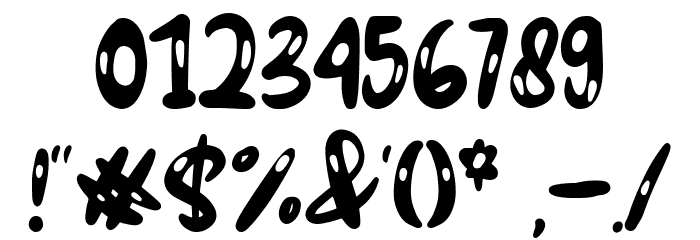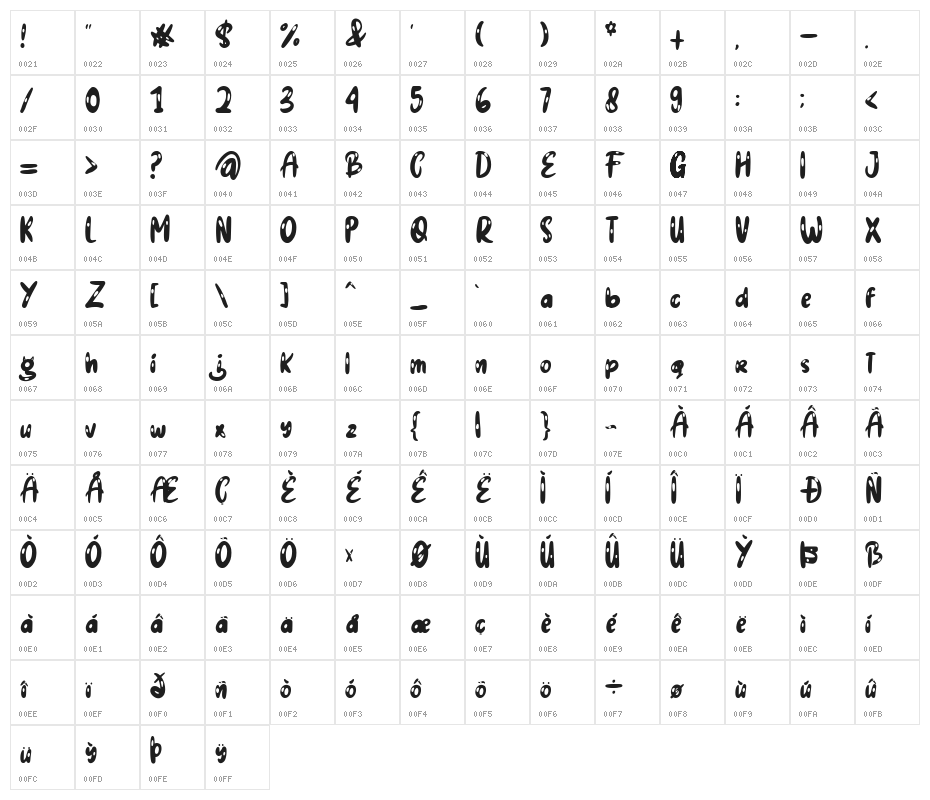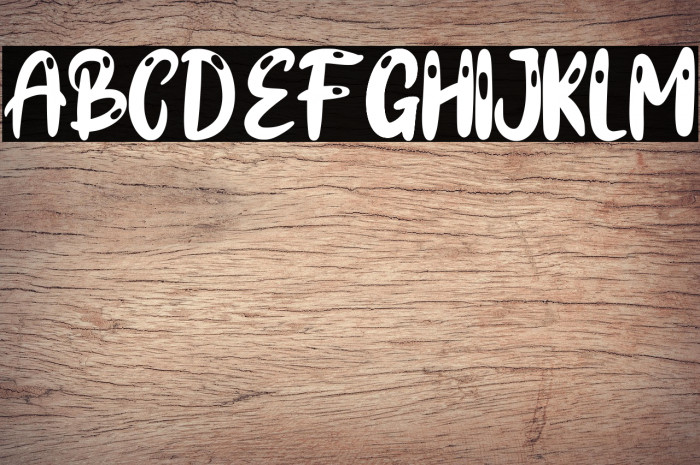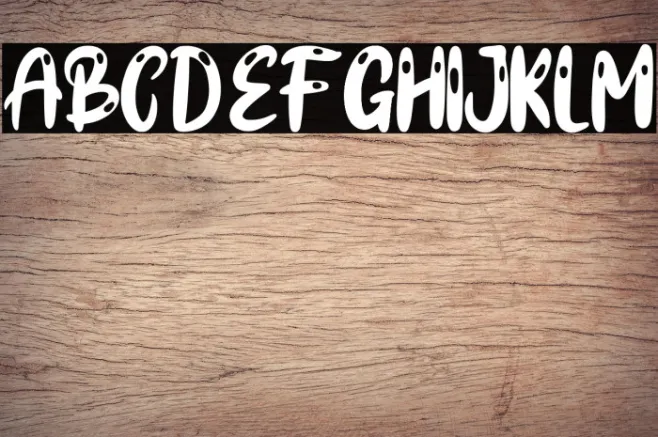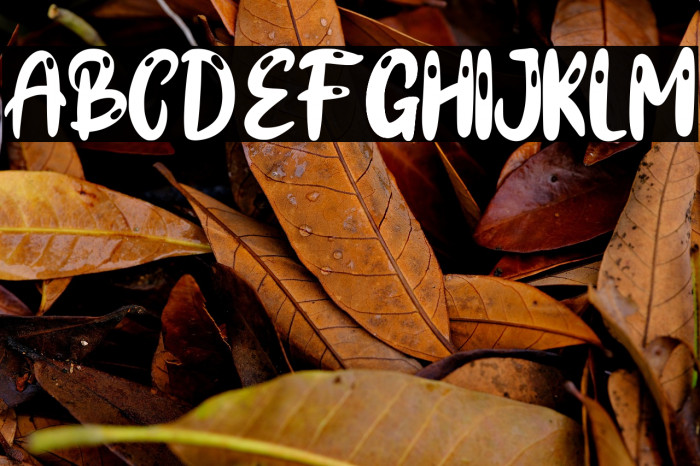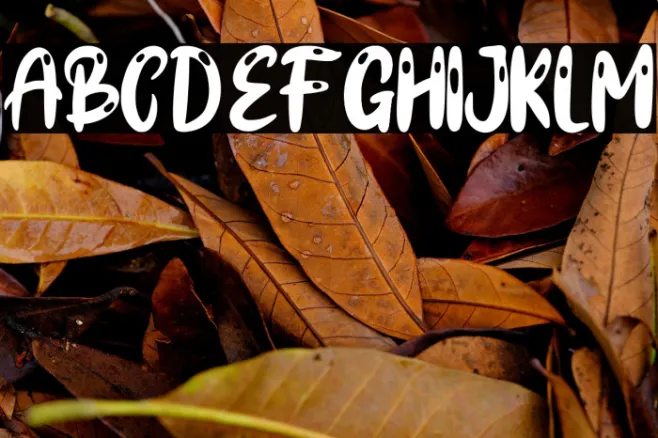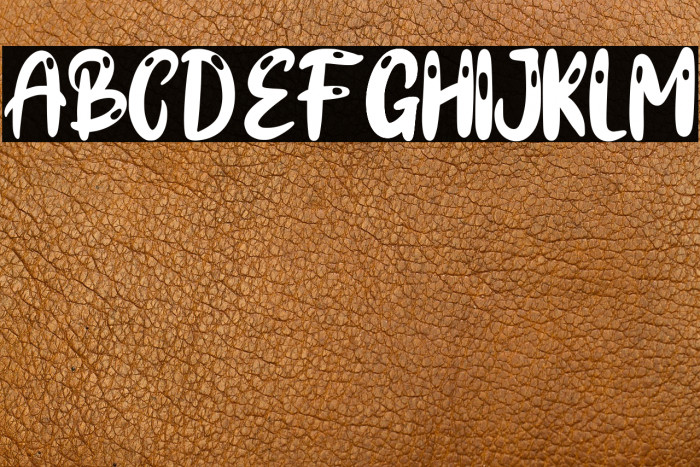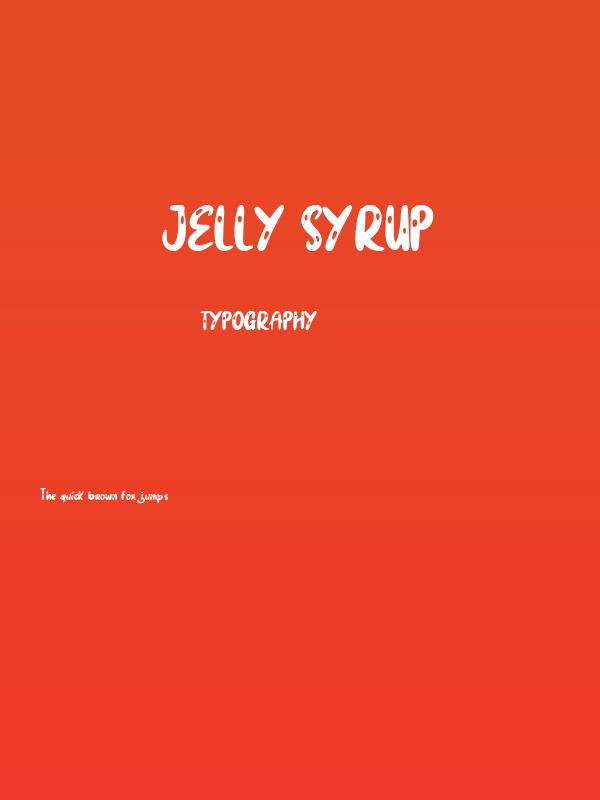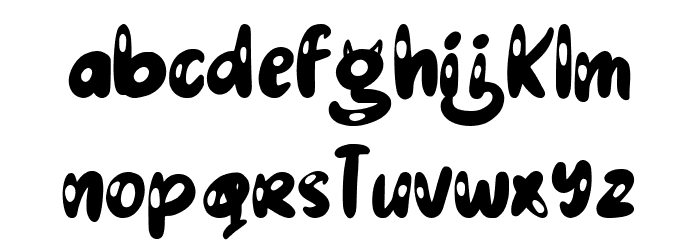
Jelly Syrup Font
Jelly Syrup Description
This playful and whimsical font features bold, rounded characters with a bubbly appearance, reminiscent of liquid or syrup. The uppercase letters are large and dynamic, while the lowercase letters maintain a consistent, flowing style. Numbers and special characters follow the same lively design, making them stand out with their unique shapes. The font's overall look is fun and energetic, perfect for projects that require a touch of creativity and joy. Its distinctive style makes it suitable for eye-catching designs, ensuring that any text is both readable and visually appealing.